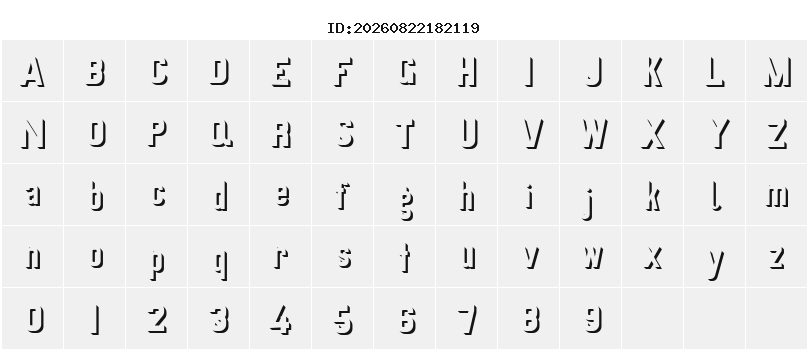
Schattern von Preussische VI 9 Preview
• Font Name: Schattern von Preussische VI 9
• Font ID: PeterWiegel: Preussische VI 9: 2009
• Full Font Name: Schattern von Preussische VI 9
• Designer: Peter Wiegel
• Manufacturer: Peter Wiegel
About Schattern von Preussische VI 9.ttf
Schattern von Preussische VI 9.ttf is a modern, elegant sans-serif font designed for ultimate readability and visual harmony. Perfect for branding, headlines, web design, and print materials.